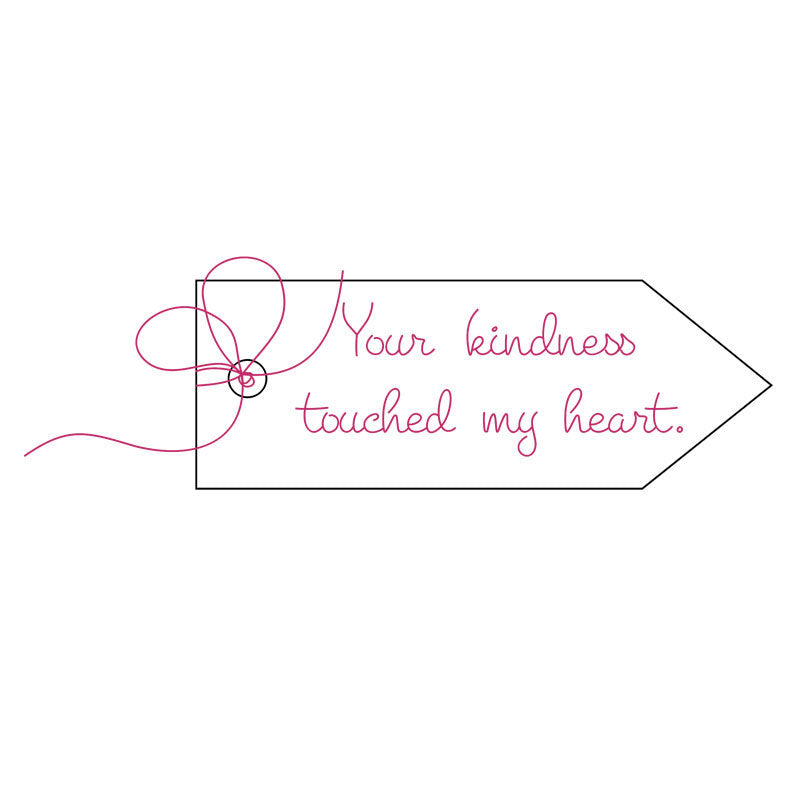
Your Kindness Touched My Heart
"Your kindness touched my heart" single line design for Silhoutte, Cricut, and similar personal cutting machines. Use pen tools, foil quilling, or embossing... all are equally gorgeous in this design for a card!
These lines are hairline and are not for cutting items such as vinyl or cardstock.